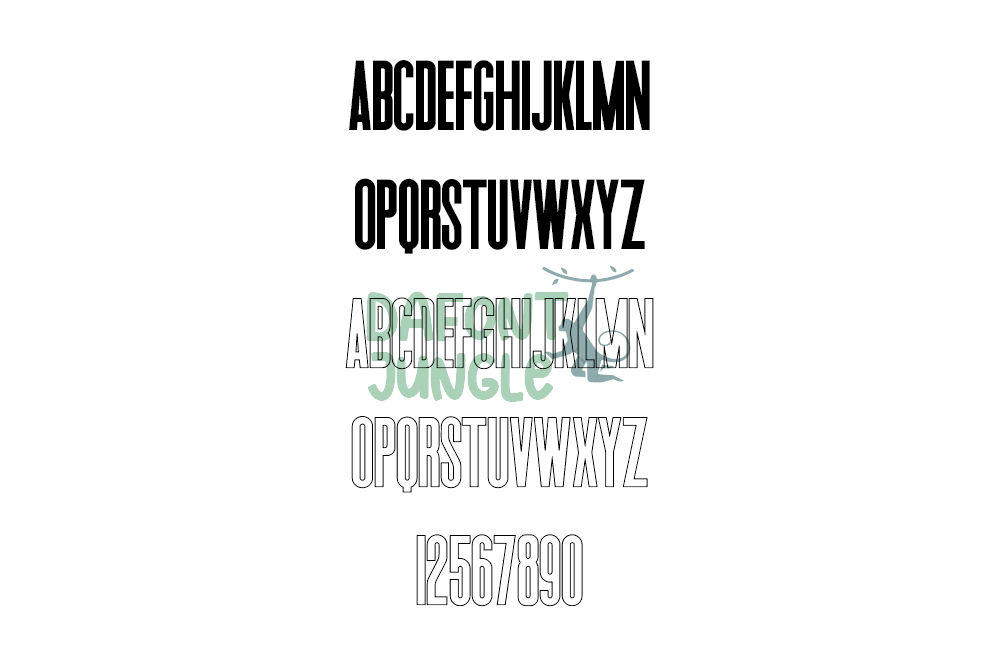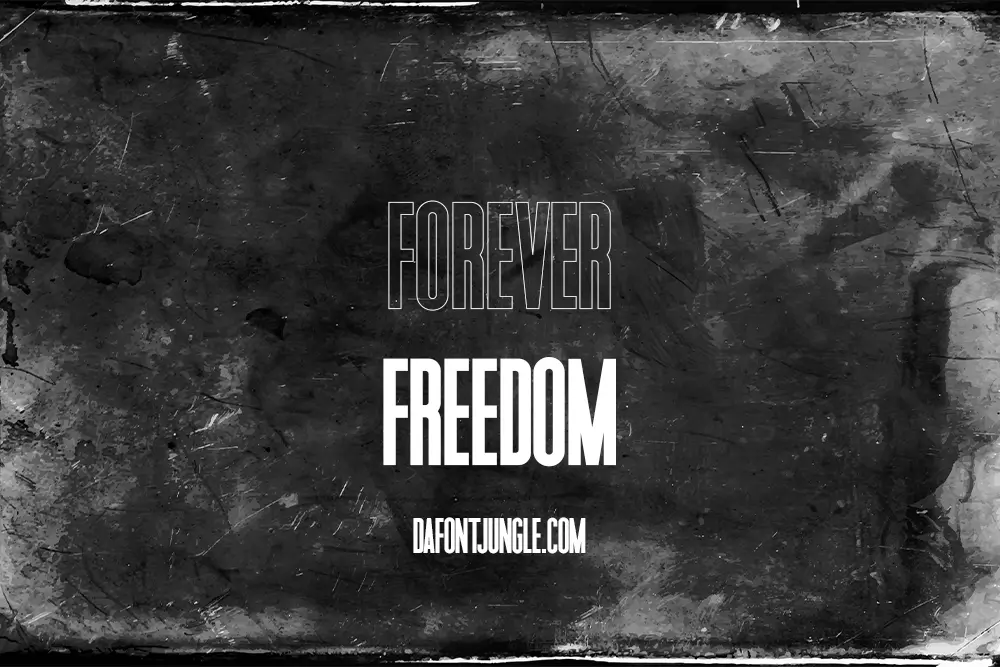
Forever Freedom – Bold Modern Display Font
Forever Freedom is a bold modern display font that grabs attention with its clean style and strong presence. It includes four complementary styles—regular, italic, outline, and outline italic—giving you flexibility to mix and match for cohesive, eye-catching designs.
This font works well for headlines, logos, posters, and branding projects that need a confident and contemporary look.